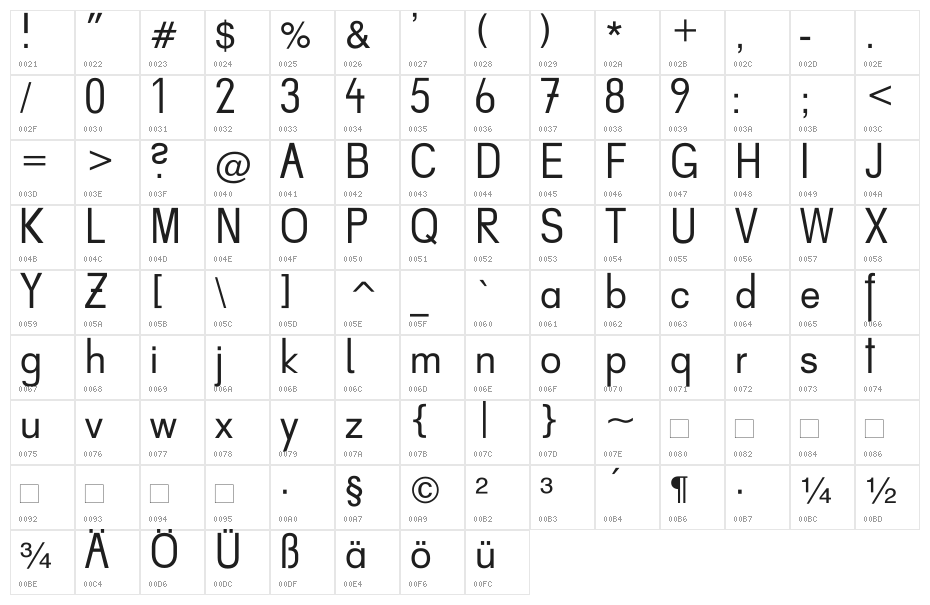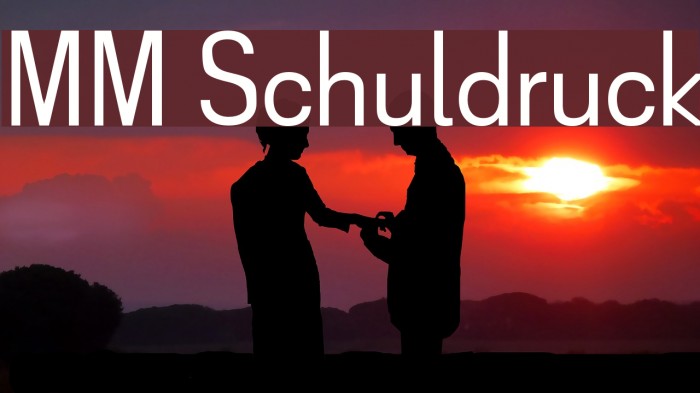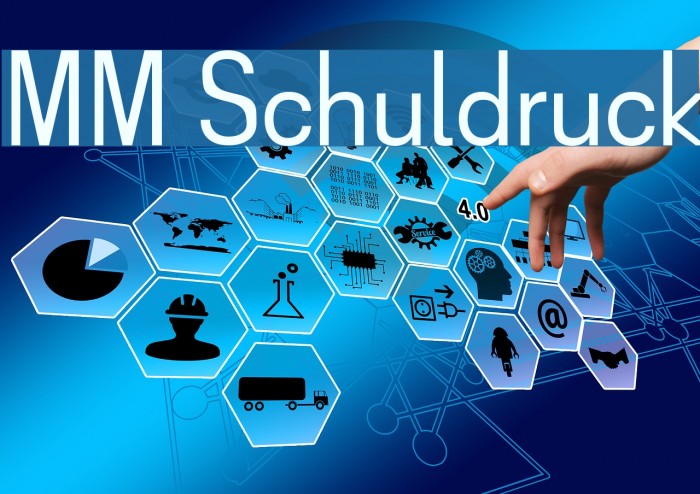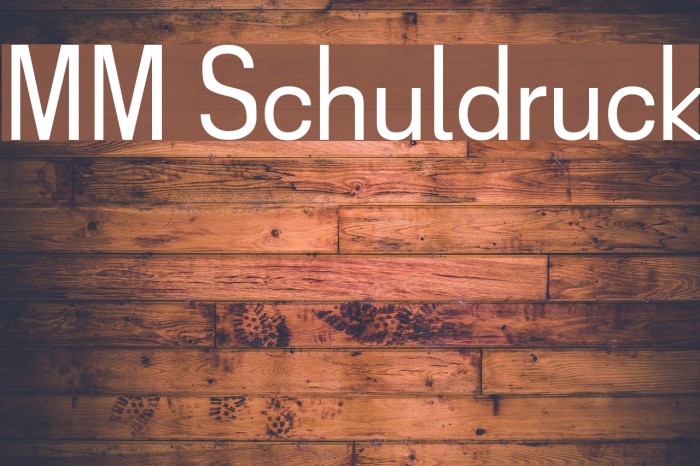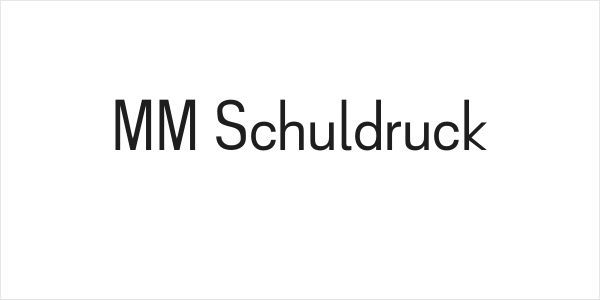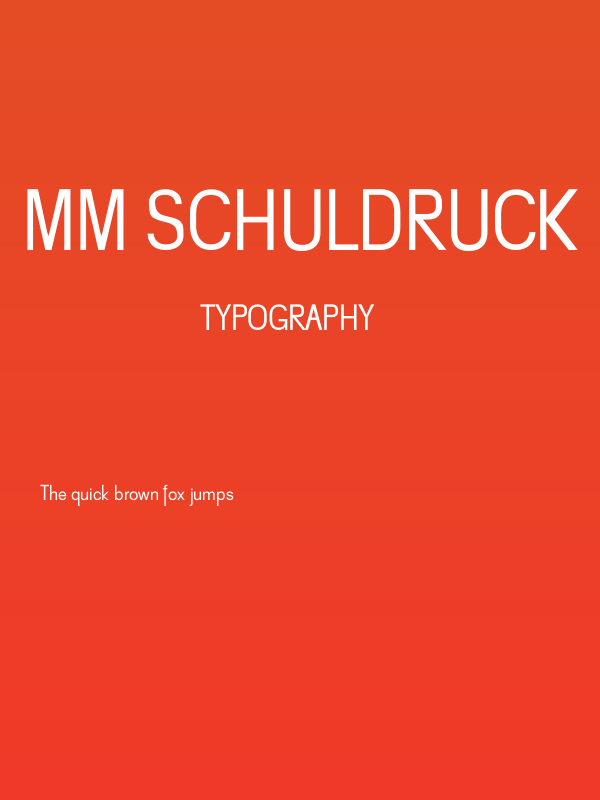
MM Schuldruck Font
MM Schuldruck Description
This font features a clean and modern sans-serif design with uniform stroke widths, giving it a sleek and professional appearance. The characters are well-proportioned, with a slightly condensed form that enhances readability while maintaining a stylish look. The uppercase letters are bold and assertive, while the lowercase letters offer a softer, more approachable feel. The numerals are clear and distinct, making them suitable for a variety of applications. Special characters are included, providing versatility for different design needs. Overall, this font is ideal for projects requiring a contemporary and polished aesthetic.